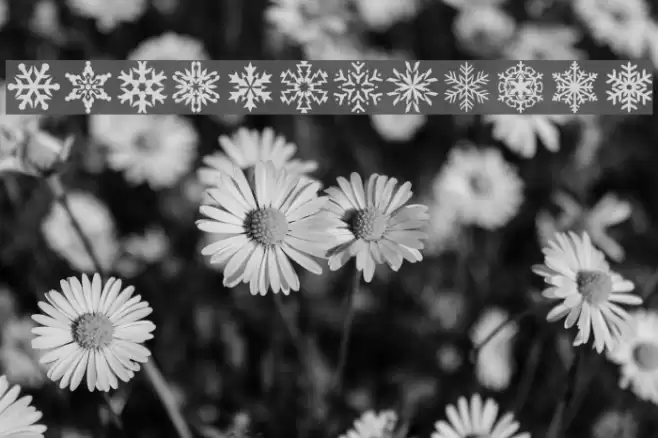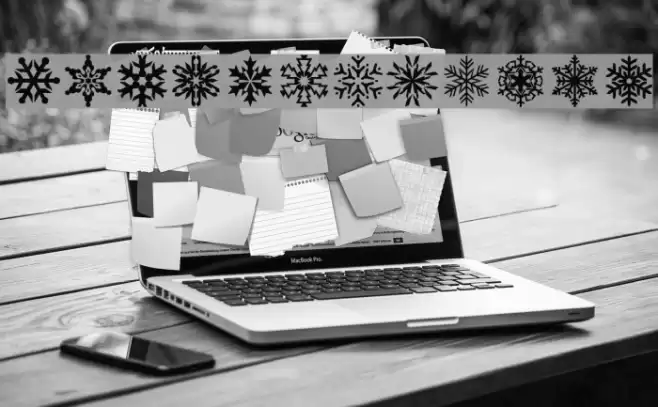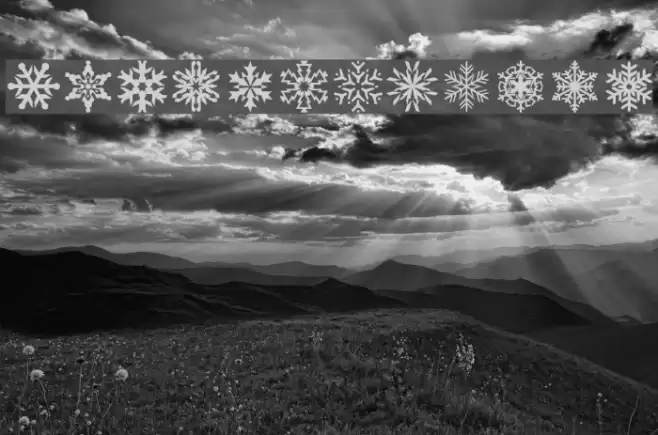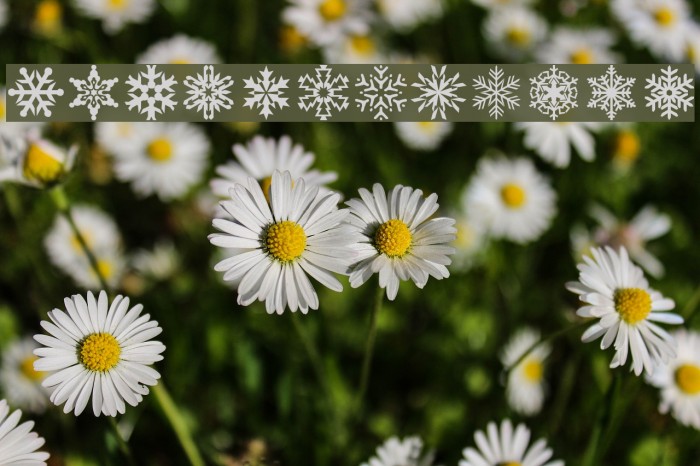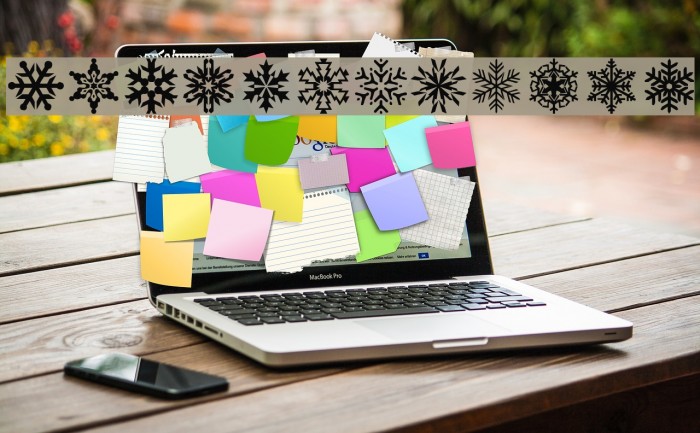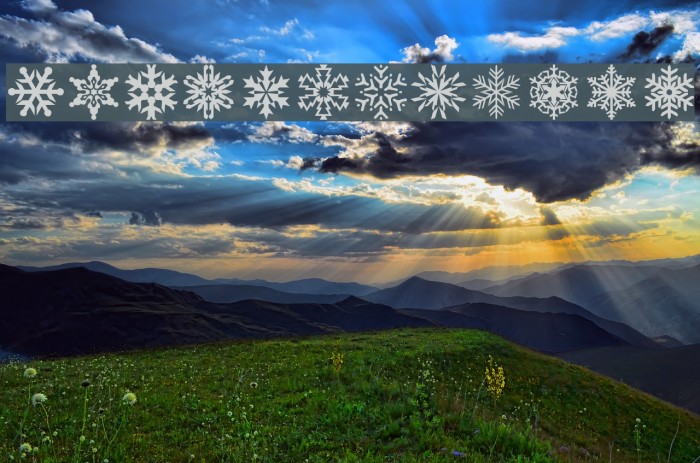
lpsnowflake Font
lpsnowflake Description
A decorative symbol font featuring a variety of intricate and stylized snowflake glyphs, each with unique geometric and organic patterns, rendered in solid black.
A decorative snowflake symbol font with diverse designs from Christmas (Xmas) fonts.
- Proposed Projects: Winter-themed invitations, holiday cards, seasonal branding, decorative borders, digital scrapbooking.
- Overall Style: Decorative, Seasonal
- Use Case: Icons, Borders, Decorative elements